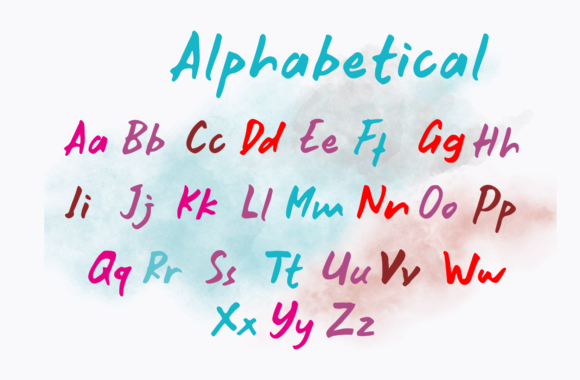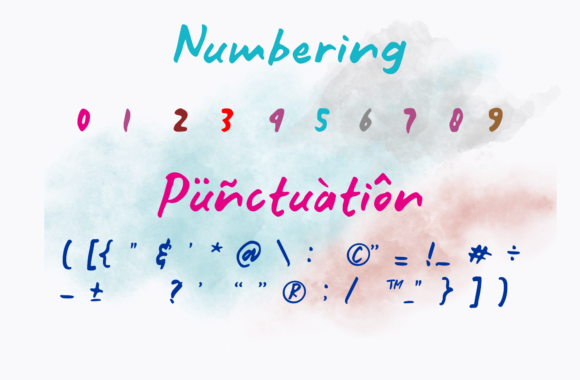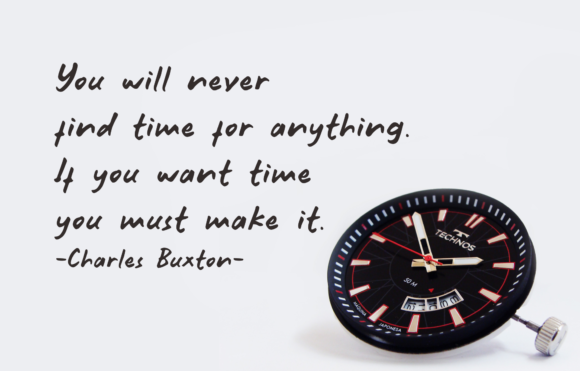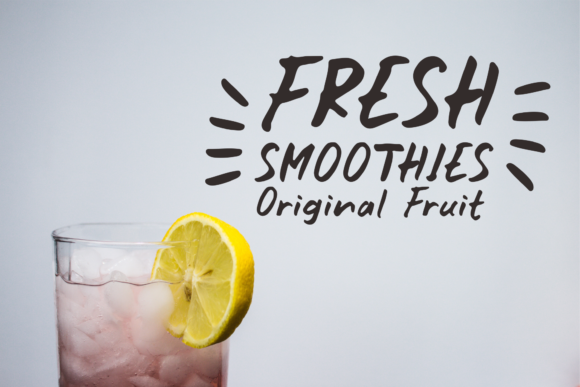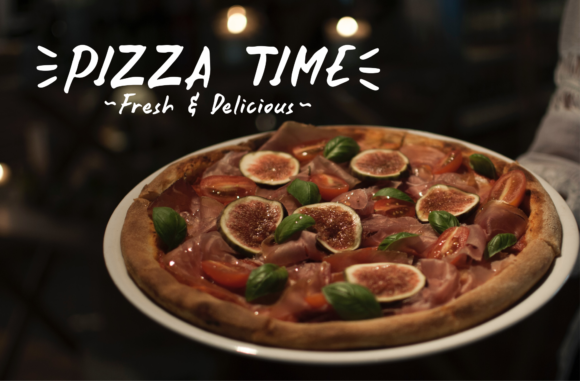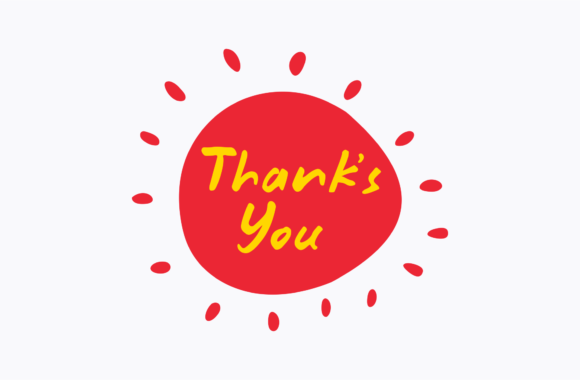
Sweet Birthday Font
About Sweet Birthday Font
Sweet Birthday is a playful homage to children’s handwriting. It will look gorgeous on a wide range of arts & crafts projects!